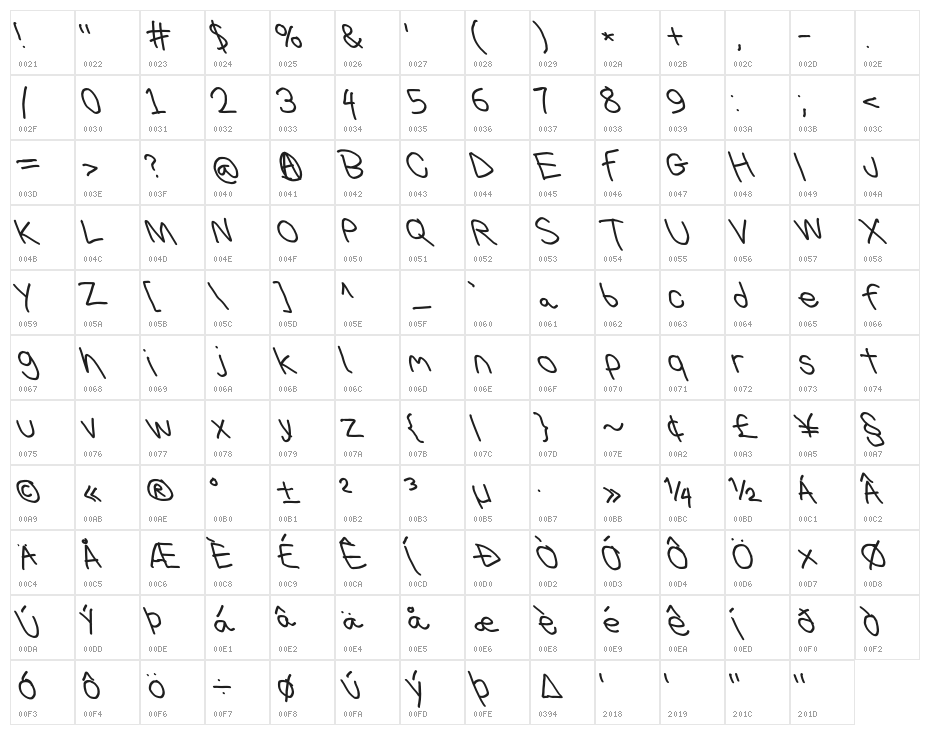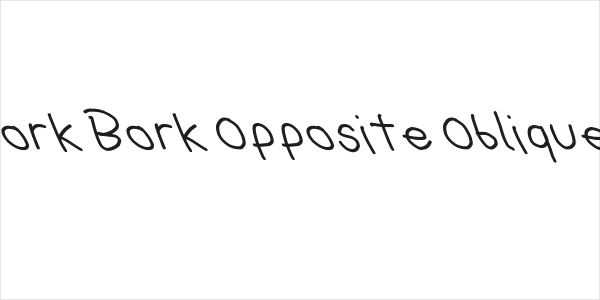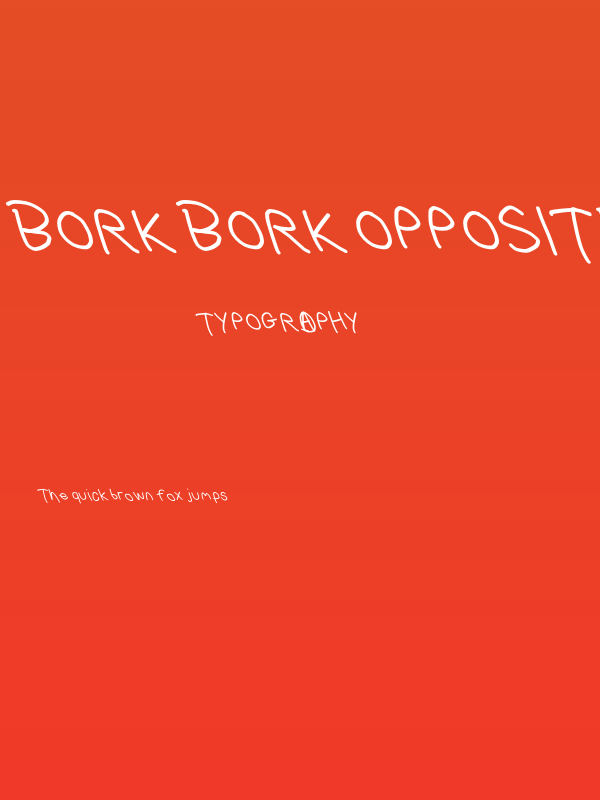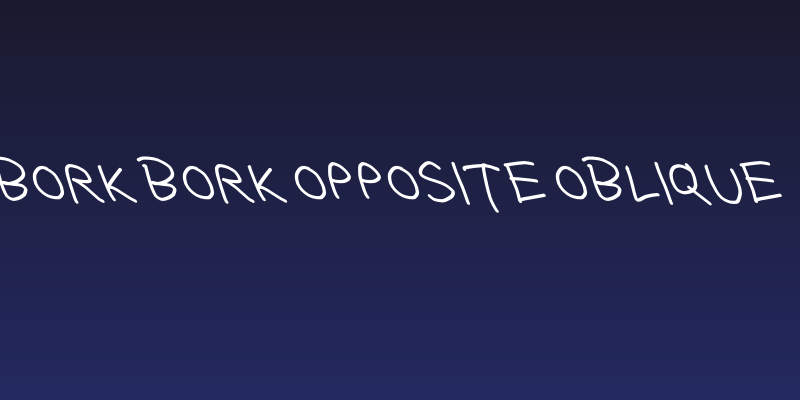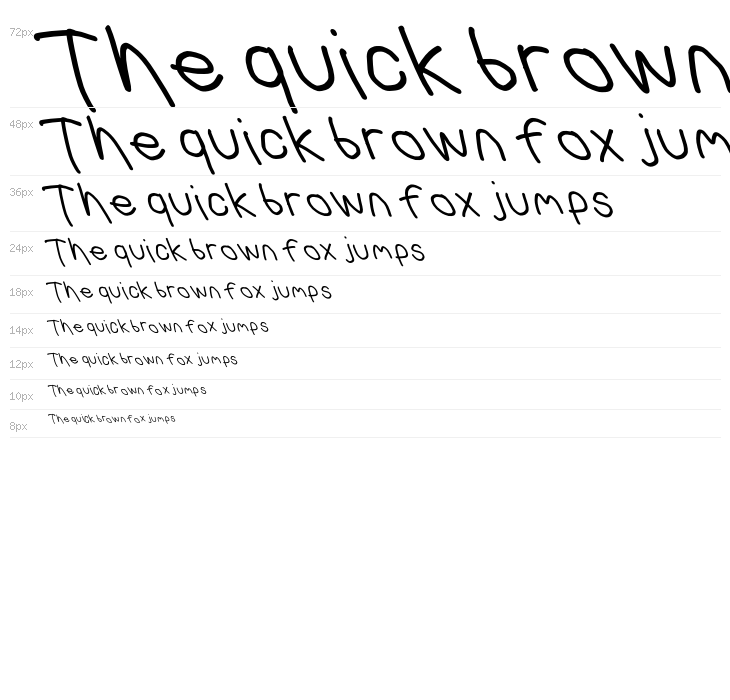
Bork Bork Opposite Oblique Font
Bork Bork Opposite Oblique Description
This playful and quirky font features a handwritten style with a casual and informal appearance. The letters are unevenly sized and slightly tilted, giving them a dynamic and lively feel. The strokes are bold and consistent, with rounded edges that add to the friendly and approachable character of the font. The numbers and special characters maintain the same whimsical style, ensuring a cohesive look across all elements. This font is perfect for projects that require a personal touch or a fun, lighthearted vibe.
| Proposed Projects | Ideal for children's books, greeting cards, playful branding, and informal invitations. |